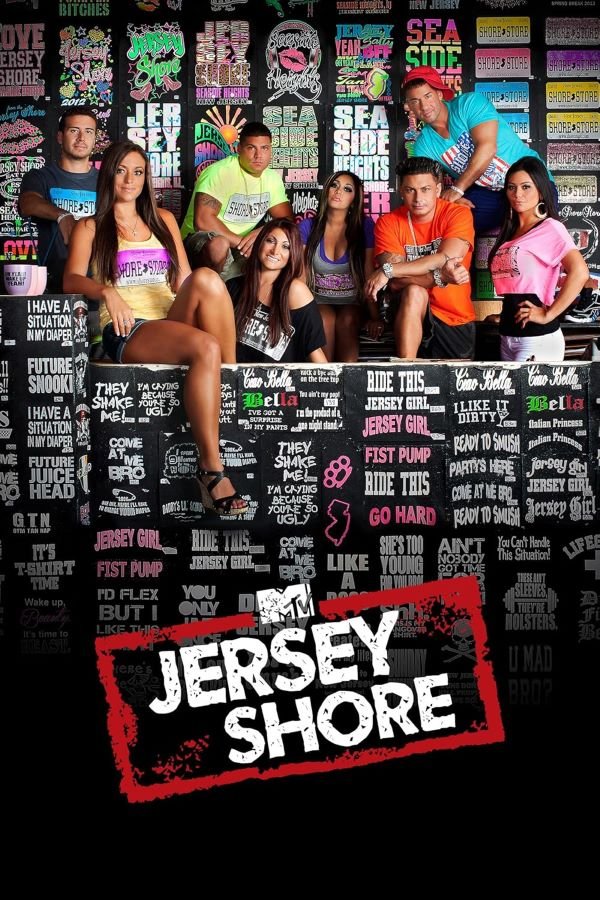
Jersey Shore Font
Jersey Shore Font is Umbrage — a bold, playful funky font with rough edges and dynamic strokes that perfectly capture the fun, energetic, and dramatic atmosphere of the MTV reality series that premiered in 2009 following a group of young adults living together in Seaside Heights, New Jersey. Free for personal use.
Style: Display Font, Rough Font